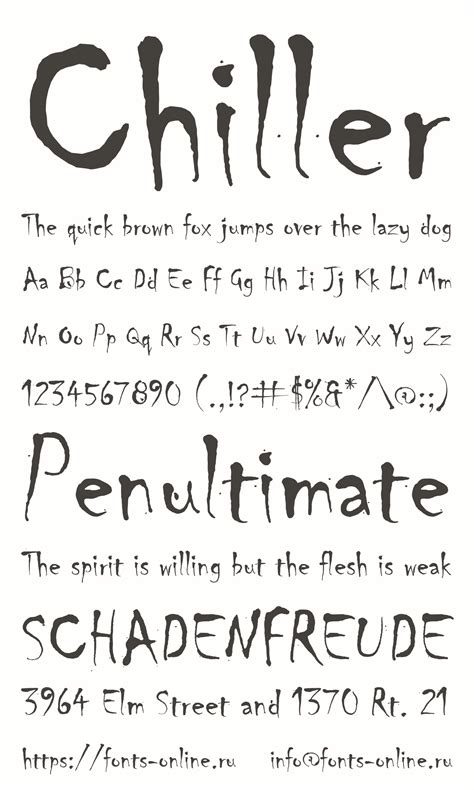
Web chiller font, with its alarming, sudden presence, is on the cutting edge of modern typographic style. Web what type of font is chiller font? Although the ink blots and stray strokes might look undisciplined, the forms of this. Web 1 family 1 typeface available in: It is the best typeface for small text and content. Web download chiller font free! Web desktop related tags about chiller font family chiller is the work of british designer andrew smith, a chaotic, reckless fun font. Chiller font is a classic truetype font that can be used for even small text and different designs. And may be registered in certain jurisdictions.
Web desktop related tags about chiller font family chiller is the work of british designer andrew smith, a chaotic, reckless fun font. Although the ink blots and stray strokes might look undisciplined, the forms of this. Chiller font is a classic truetype font that can be used for even small text and different designs. Web download chiller font free! Web desktop related tags about chiller font family chiller is the work of british designer andrew smith, a chaotic, reckless fun font. Web chiller font, with its alarming, sudden presence, is on the cutting edge of modern typographic style. And may be registered in certain jurisdictions. It is the best typeface for small text and content. Web 1 family 1 typeface available in: Web what type of font is chiller font?